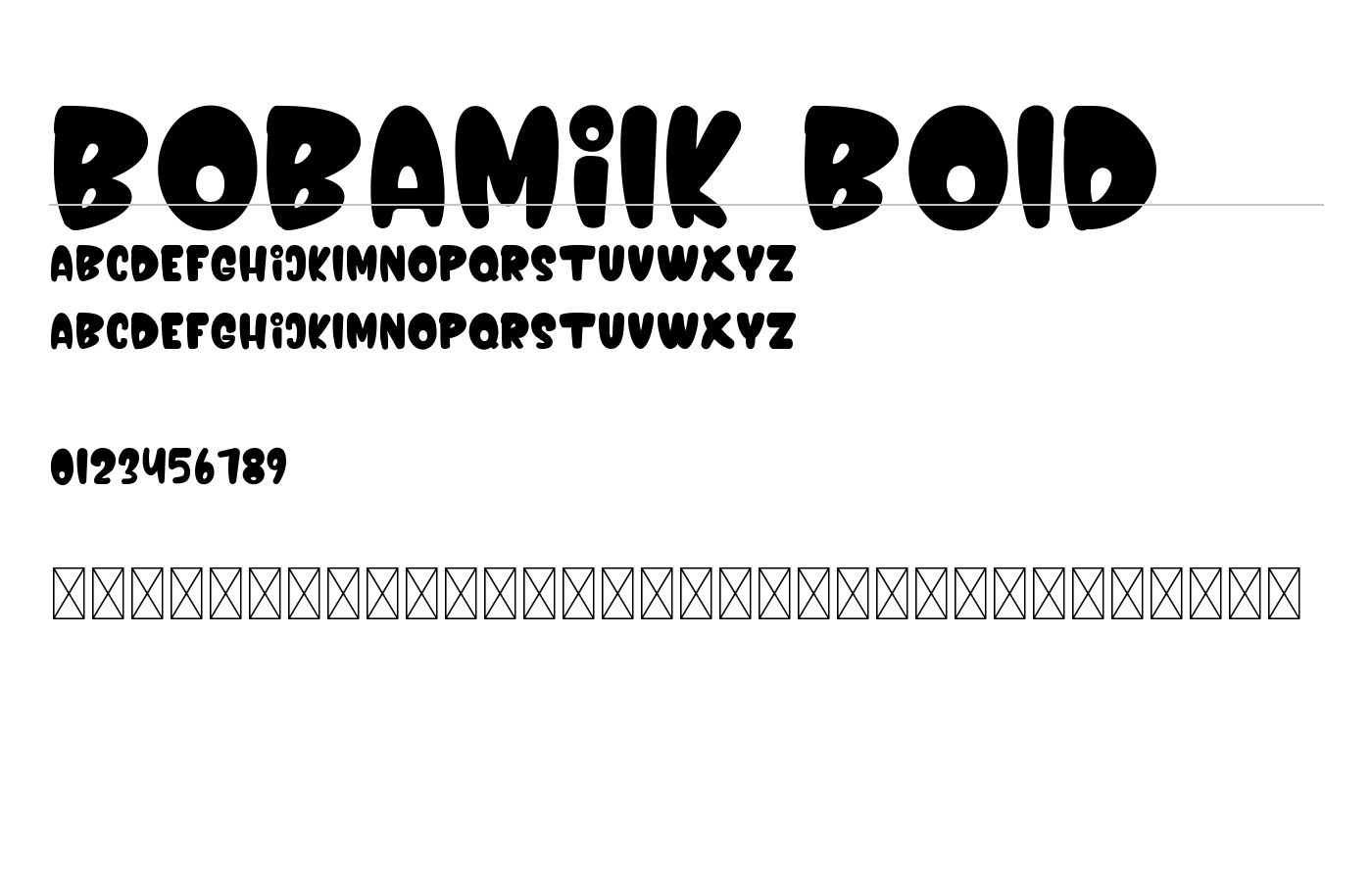
Bobamilk Bold is a playful and chunky sans serif font with a bold weight and rounded, organic shapes that give it a friendly and whimsical feel. Its irregular, bubbly letterforms with high x-height and soft edges make it perfect for fun, casual branding, children’s products, and eye-catching headlines. This font works well in designs that want to convey warmth and approachability with a distinctive, informal style.
Bobamilk Bold Font
About Bobamilk Bold Font